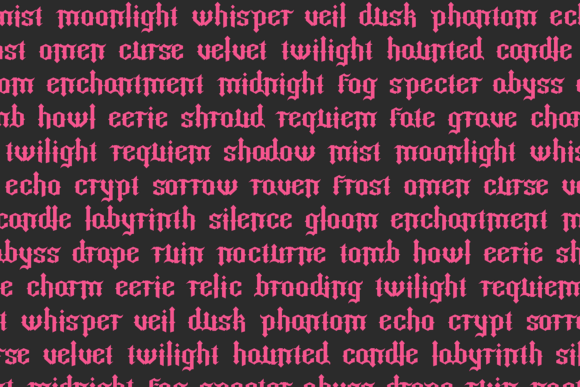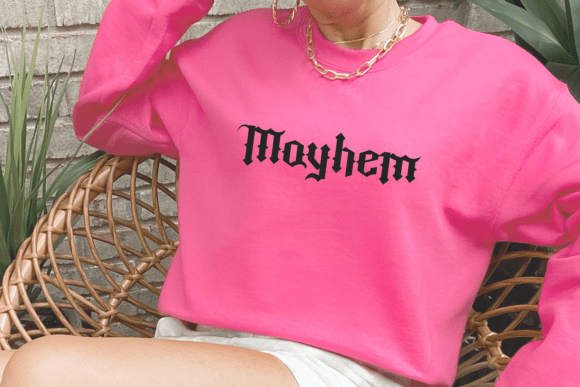
Introduction to Requiem Font
As designers, we’ve all been there – staring at a blank canvas, struggling to find the perfect font to bring our creative project to life. The right typography can make all the difference, elevating our designs from bland to grand. And that’s exactly where the Requiem Font comes in – a high-quality, geometric bold font that’s perfect for making a statement.
With its stylish gothic-style aesthetic, the Requiem Font is a design resource that’s hard to resist. Whether you’re working on social media graphics, crafting invitations, or designing decor for your home, this font is sure to add a touch of sophistication and elegance to your work. And the best part? It’s available for free download, complete with upper and lowercase glyphs, numbers, punctuation, and international characters – making it a versatile design tool that’s perfect for any creative project.
Key Features of Requiem Font
- High-quality design resource ideal for creative projects and presentations.
- Requiem Font offers a transparent background, making it easy to layer over images and designs.
- Unique, elegant, and sophisticated design makes Requiem Font a standout choice for creative projects and presentations.
- Perfect for use in a variety of design contexts, including logos, branding materials, and digital art.
Honest Review: Requiem Font
As a designer, I’m always on the lookout for high-quality design resources that can elevate my creative projects. The Requiem Font is one such resource that caught my attention.
- ✨ Unique and elegant design style that adds a touch of sophistication to any project.
- ✨ Includes a transparent background, making it easy to overlay on top of images or other design elements.
- ⚠️ Limited character set, which may be a concern for designers who need to use the font for extended text.
Overall, the Requiem Font is a solid design resource that can add a touch of elegance to your creative projects. While it may have some limitations, it’s a great option for designers who are looking for a high-quality, free font that can help them achieve their design goals.
How to Use Requiem Font
The Requiem Font is a high-quality design resource ideal for creative projects requiring a unique and striking visual element. This free download offers a transparent background, making it versatile for various design applications.
Tips for Getting the Most Out of the Requiem Font
To maximize the impact of the Requiem Font in your designs:
- Combine the Requiem Font with other design elements to create a cohesive look.
- Use the font’s transparent background to create a sense of depth and dimension.
The Requiem Font is suitable for a variety of design projects, including:
- Infographics and data visualizations
- Wedding invitations and event materials
- Magazine and newspaper layouts
When to use: Nimbus Sans is ideal for projects that require a sleek and sophisticated look, such as business cards, brochures, or websites.